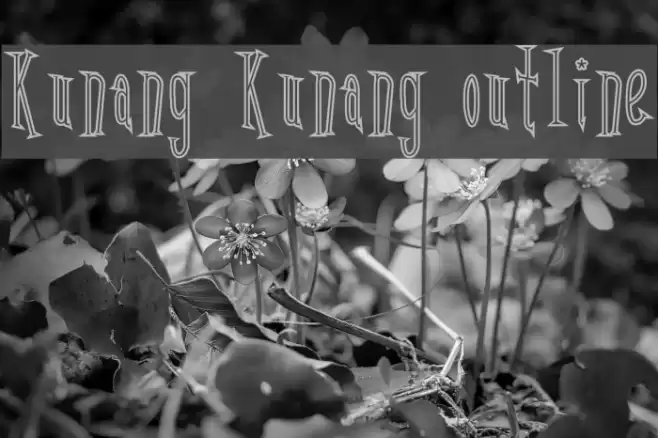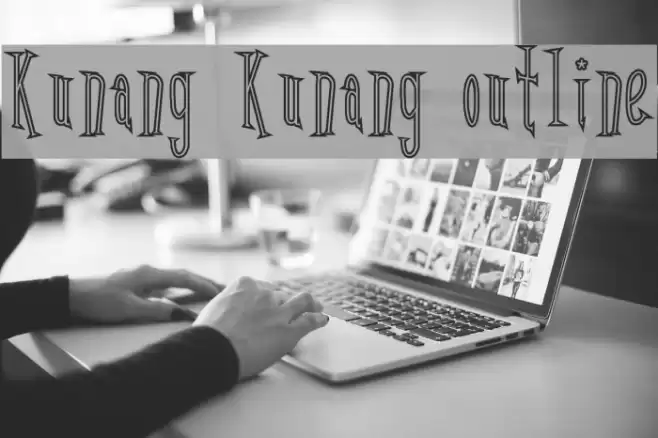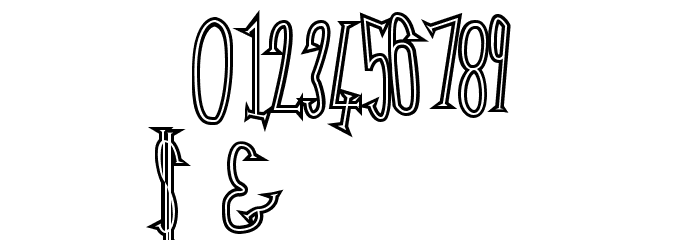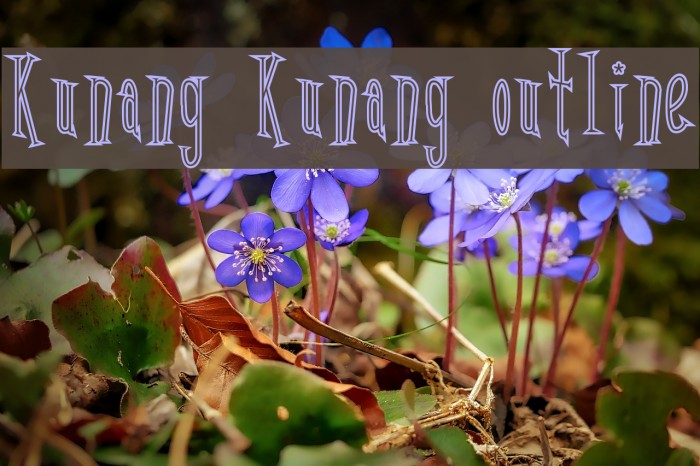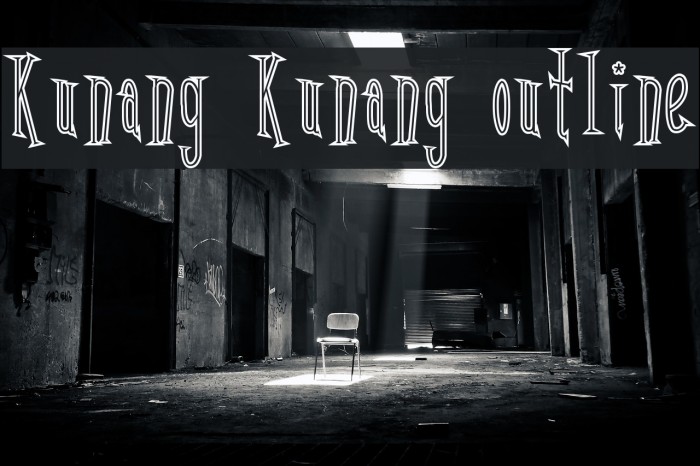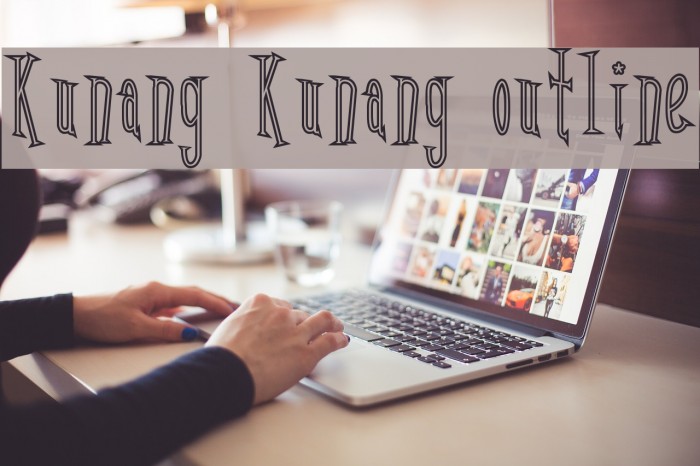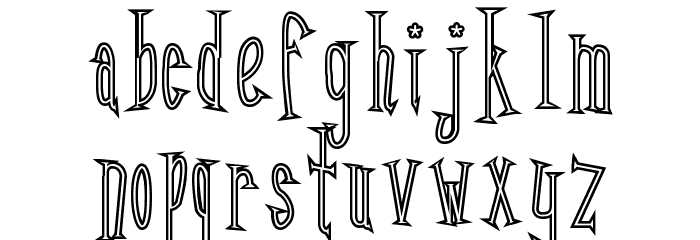
Kunang Kunang outline Font
Kunang Kunang outline Description
This font features a unique and decorative style with an outline effect that gives it a bold and eye-catching appearance. The characters are tall and narrow, with exaggerated serifs and angular lines that create a sense of movement and energy. The uppercase and lowercase letters maintain a consistent design, while the numerals and special characters complement the overall aesthetic. The font's playful yet sophisticated look makes it suitable for creative projects that require a distinctive and artistic touch.
A decorative, outlined font with tall, narrow characters and exaggerated serifs from Cartoon fonts.
- Proposed Projects: Ideal for posters, album covers, event invitations, and branding materials that require a creative and artistic flair.